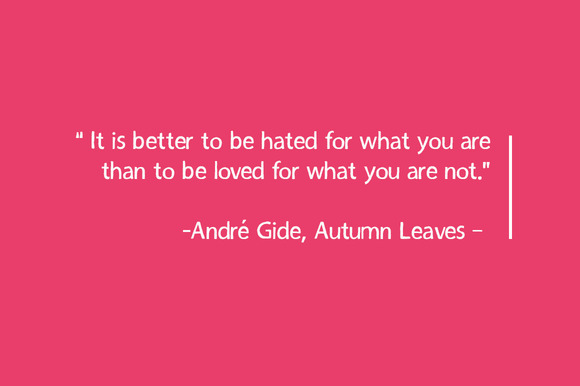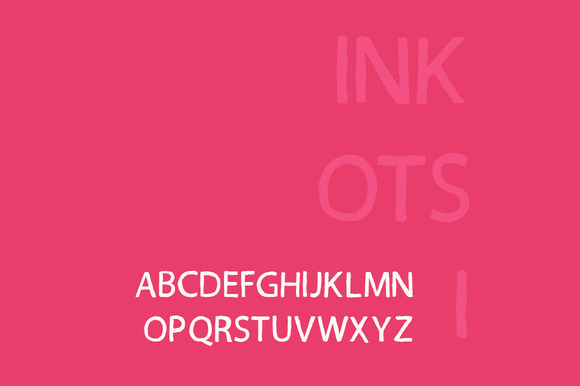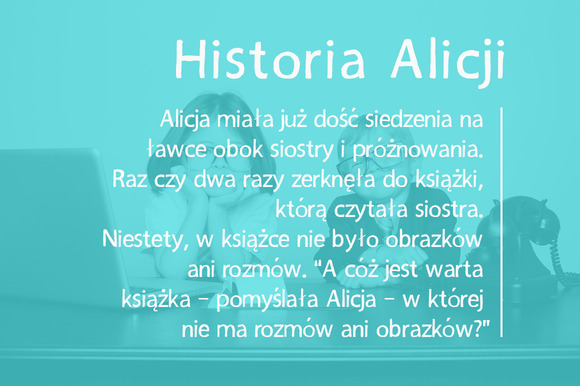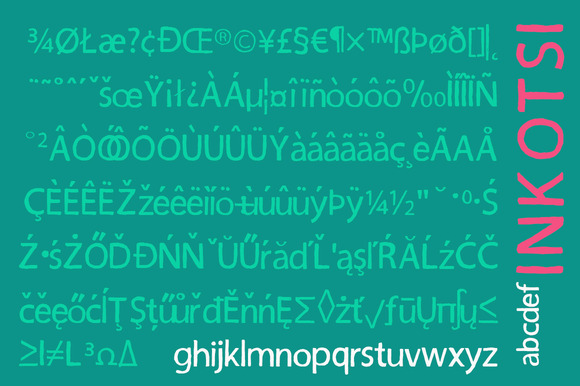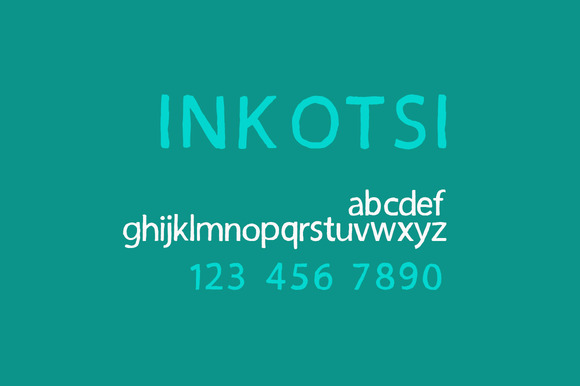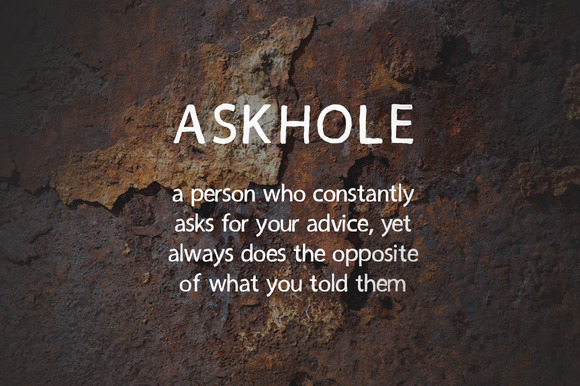
Introduction to Inkotsi Font
The Inkotsi font is a rough sans serif font created by Incools, a small design studio from Aceh, Indonesia.
Incools Design focuses mostly on creating handwritten fonts, but with Inkotsi they wanted to try something different The result is a beautiful strong font with the most perfect imperfections.